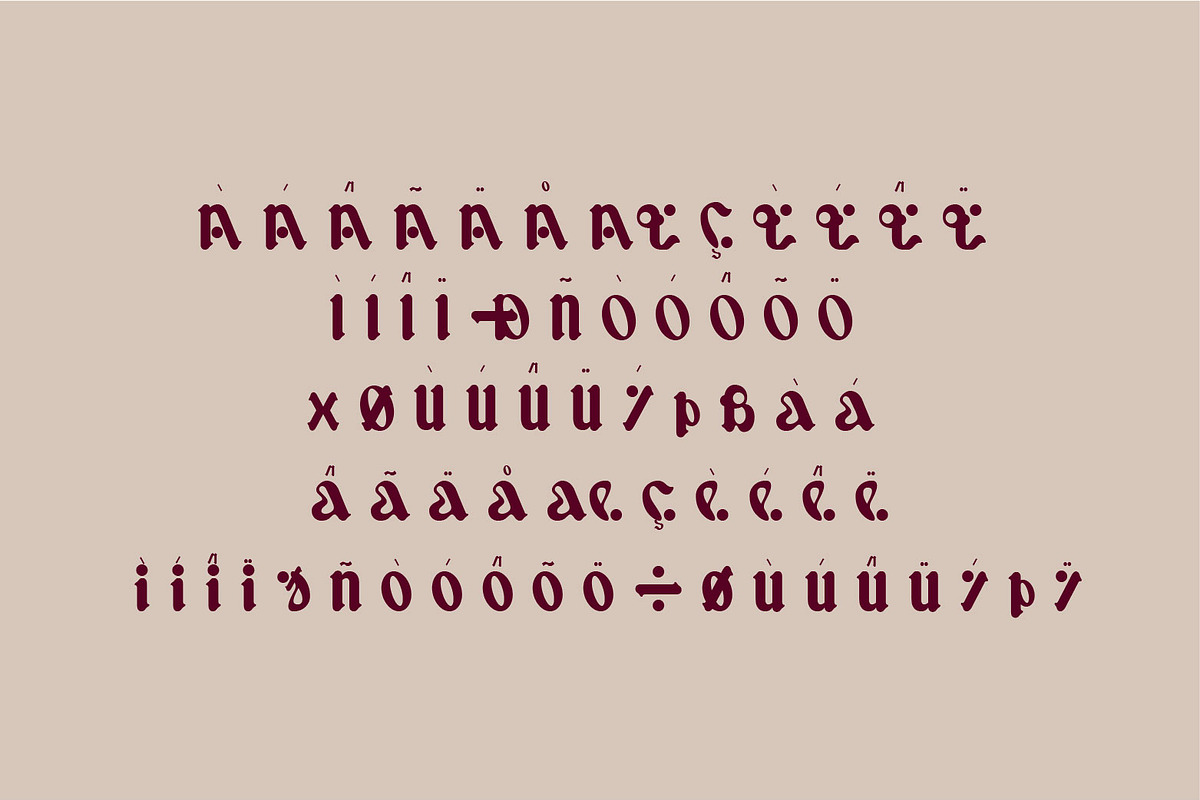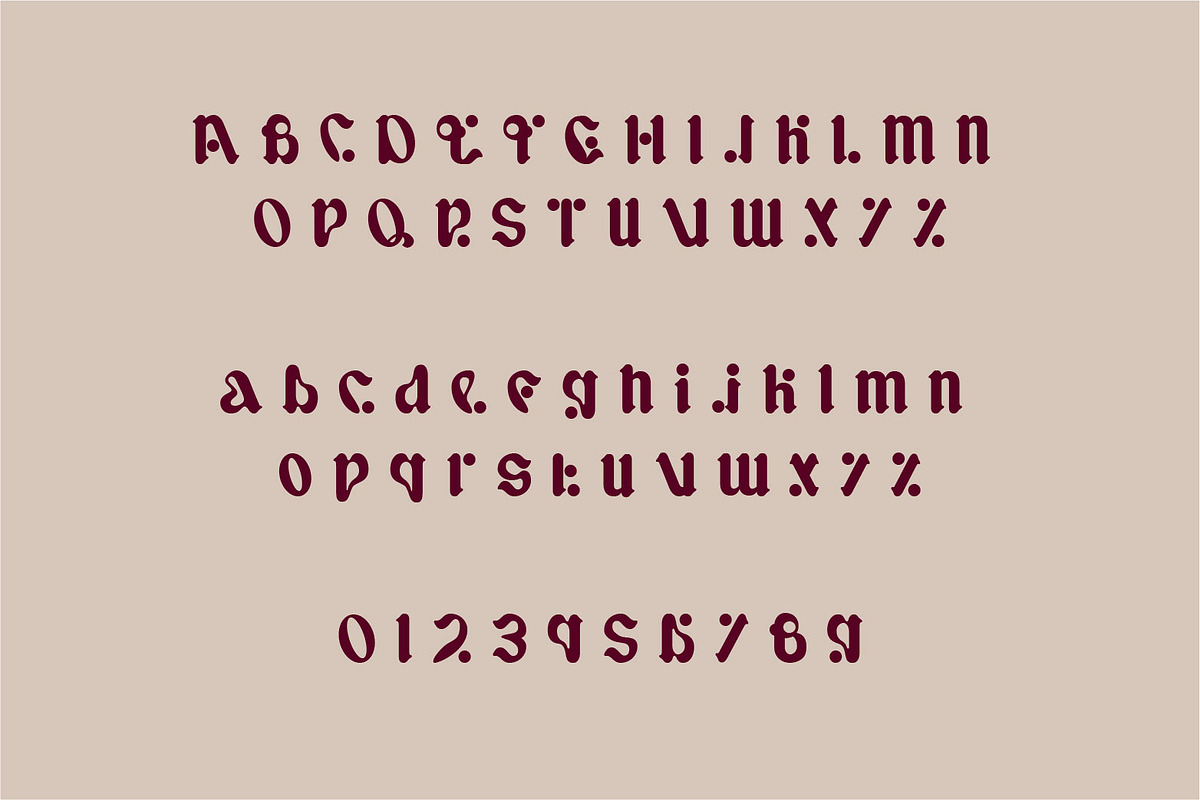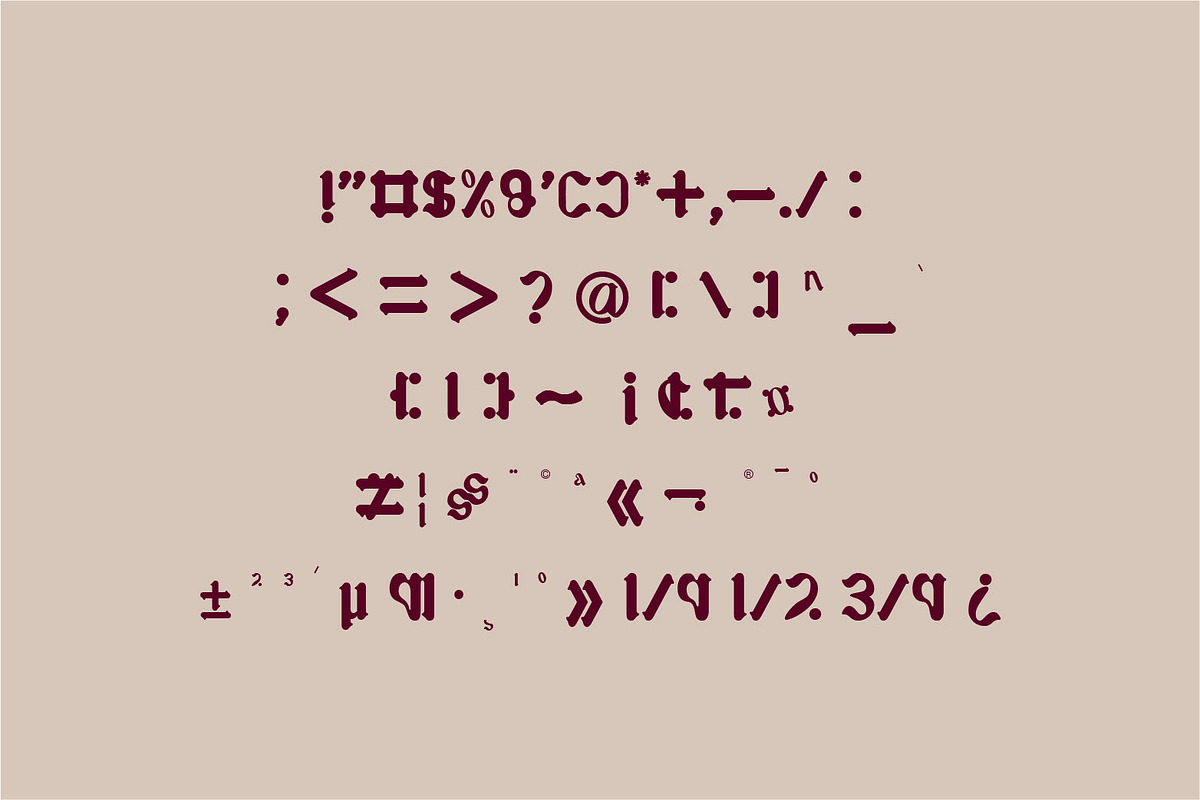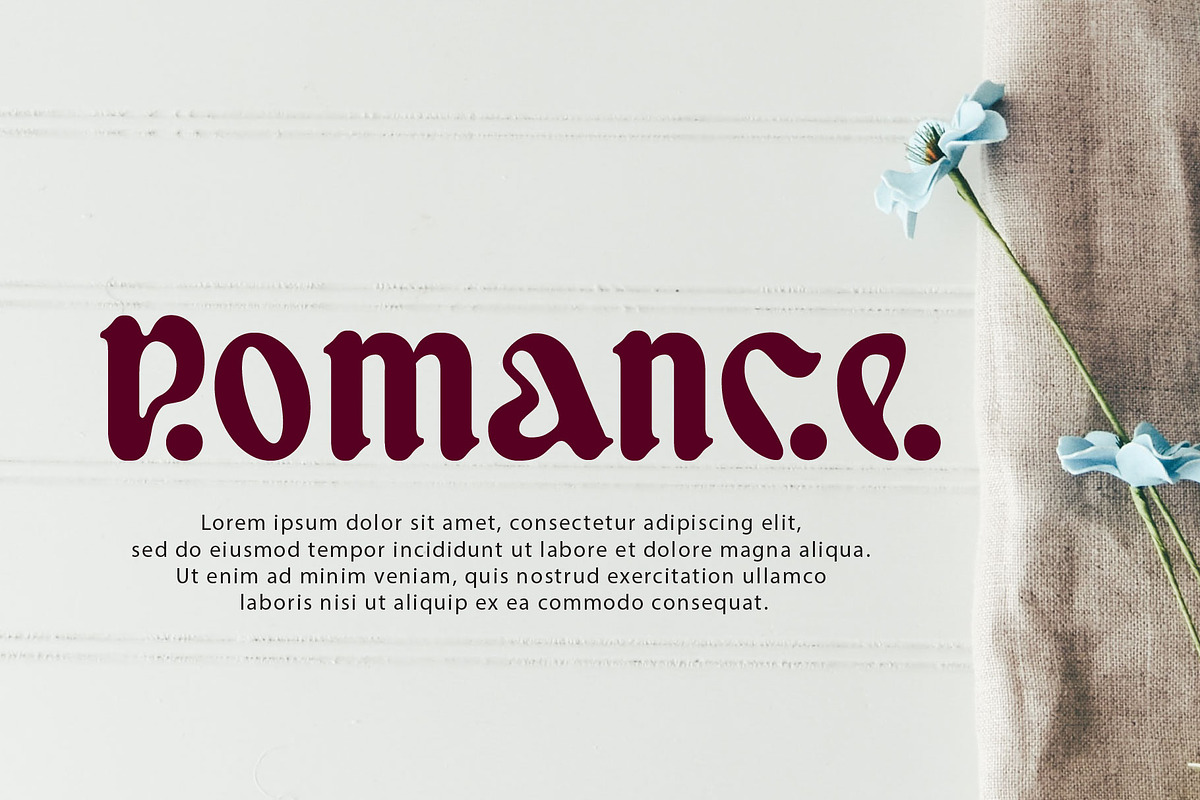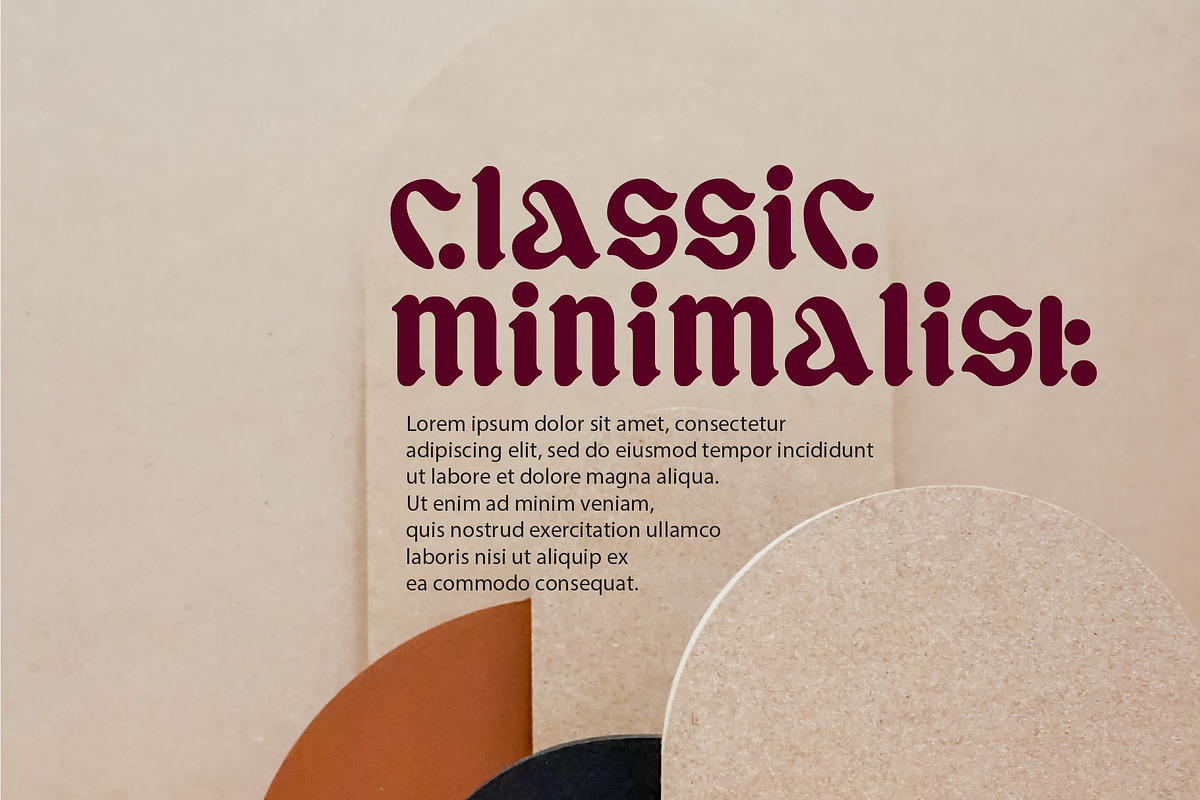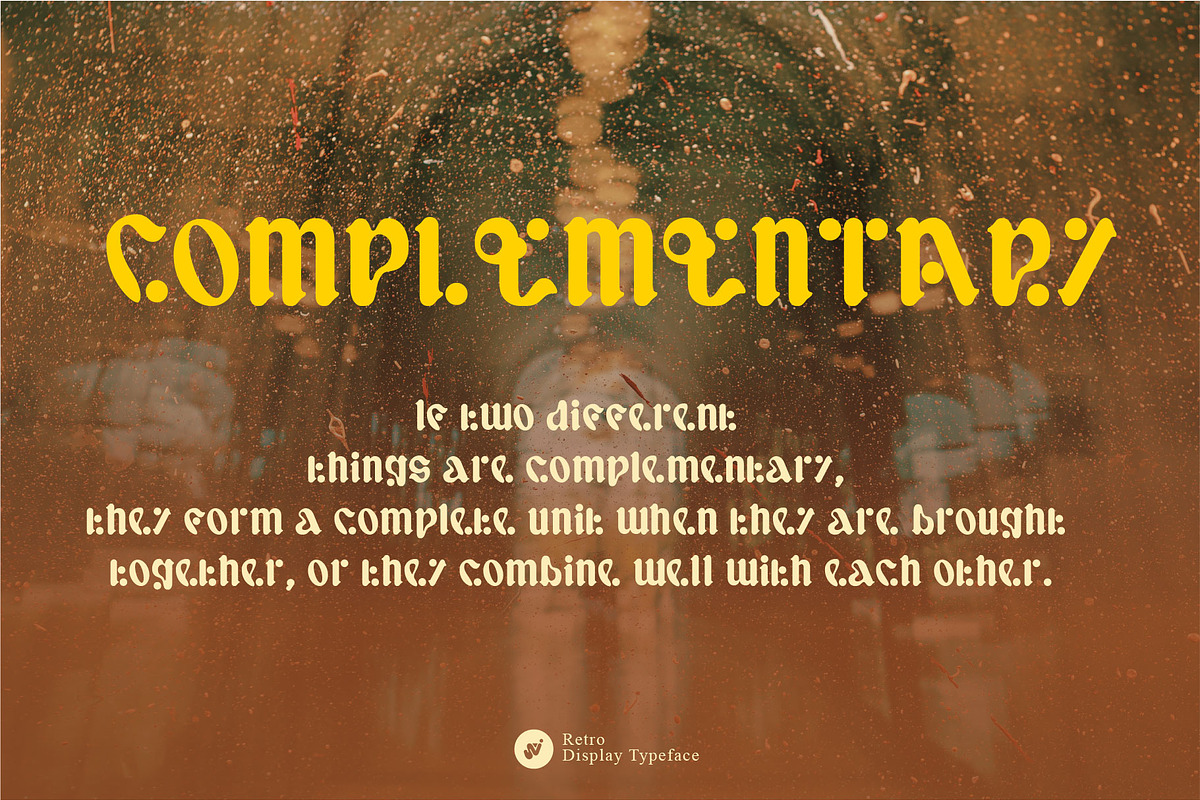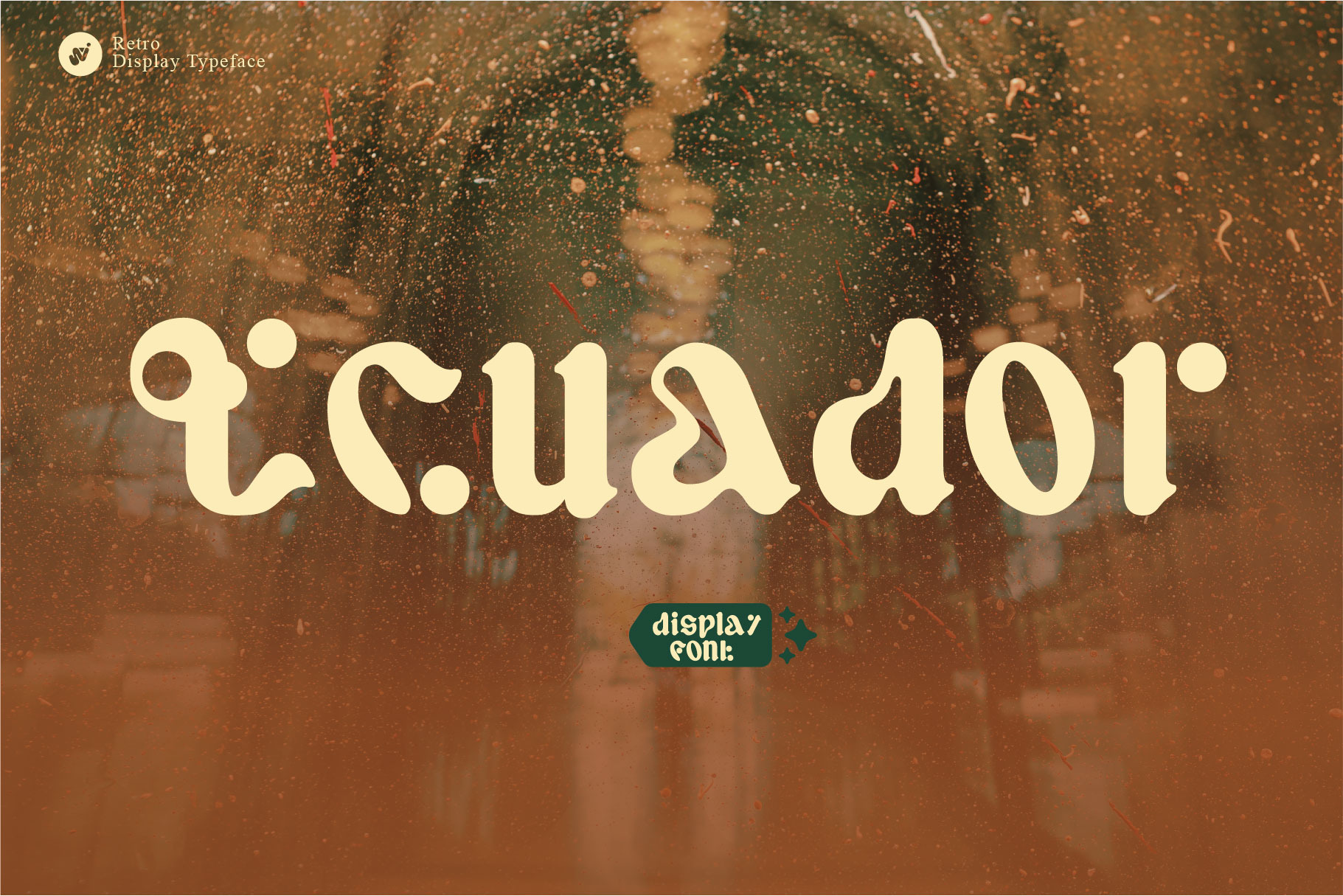
Ecuador modern retro typeface
This font has a unique character and can be used for your logos, business cards and other projects for a unique vintage look.